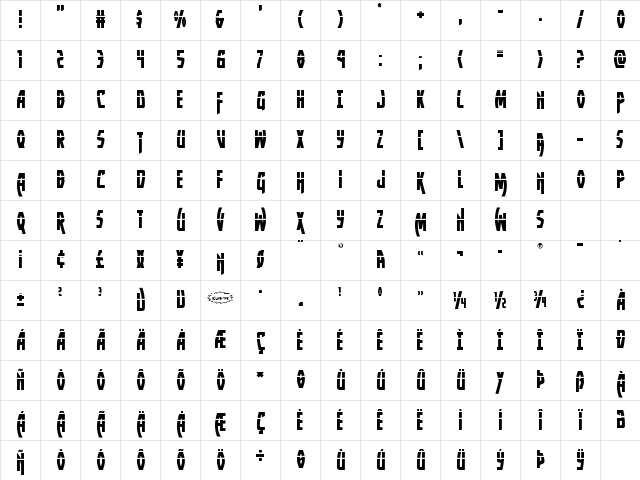
Yankee Clipper Laser Regular
Yankee Clipper Laser Family
Complete Yankee Clipper Laser Regular glyph index. Displaying only characters natively supported by Yankee Clipper Laser Regular font.
Design Context for Yankee Clipper Laser
Yankee Clipper Laser is a composed and adaptable typeface that performs quietly and consistently across a wide range of design contexts.